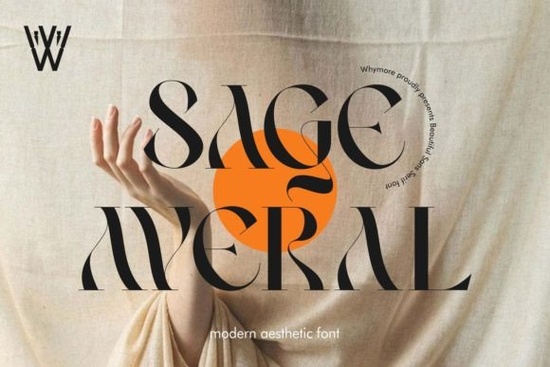
If you're looking for a font that combines elegance and boldness, Sage Averal Font is a great choice. This serif font is perfect for adding a touch of sophistication to your designs, whether you're working on wedding invitations, social media graphics, or any other creative project.
Why Choose Sage Averal Font?
SageAveral stands out with its incredibly versatile style. Its clean lines and classic yet modern feel make it an excellent option for a wide range of design needs. Whether you're a designer, crafter, or print-on-demand seller, this font can help you create beautiful and eye-catching designs.
Perfect for Wedding Invitations
One of the standout uses for SageAveral is in wedding invitations. The font's elegant and bold nature adds a refined touch to any invitation, making it a favorite among designers and couples alike. Pair it with a simple, minimalist design for a chic look, or use it as part of a more elaborate, ornate invitation. The versatility of SageAveral makes it easy to match with various themes and styles.
Beautiful Stationary Art
Beyond wedding invitations, SageAveral is also ideal for creating beautiful stationary art. From greeting cards to thank-you notes, this font can add a touch of class and sophistication. Use it to write heartfelt messages or to add a stylish heading to your stationary. The font's readability and aesthetic appeal make it a go-to choice for many designers and crafters.
Eye-Catching Social Media Posts
In the age of social media, standing out is key. SageAveral can help you create eye-catching social media posts that grab attention. Whether you're designing Instagram stories, Facebook posts, or Twitter graphics, this font can add a professional and elegant touch. Combine it with vibrant colors and high-quality images to make your posts truly stand out.
Other Creative Uses
While SageAveral is fantastic for wedding invitations, stationary, and social media, its applications are not limited to these. You can use it for branding, logo design, and even book covers. The font's bold and elegant style makes it a versatile choice for a variety of creative projects. Experiment with different combinations and see how SageAveral can enhance your designs.
Comparing SageAveral with Other Serif Fonts
Each of these fonts has its unique characteristics, but SageAveral stands out with its balance of elegance and boldness, making it a top choice for many designers.
Tips for Using SageAveral Effectively
To get the most out of SageAveral, here are some practical tips:
- Experiment with Sizes and Spacing: Play around with different sizes and spacing to find the perfect fit for your design. Sometimes, a slight adjustment can make a big difference.
- Combine with Other Fonts: Consider pairing SageAveral with a complementary sans-serif font for a balanced and harmonious look. This can add depth and interest to your designs.
- Use for Key Elements: Highlight important elements in your design, such as headings or quotes, with SageAveral. This will draw attention and add a touch of elegance.
Where to Find SageAveral Font
You can find SageAveral Font and other high-quality serif fonts at SageAveral. Explore the collection and discover the perfect font for your next creative project.
Final Thoughts
SageAveral Font is a versatile and elegant choice for designers, crafters, and small businesses. Its bold and sophisticated style makes it ideal for a wide range of creative projects, from wedding invitations to social media posts. By following the tips and exploring other serif fonts, you can find the perfect fit for your design needs.